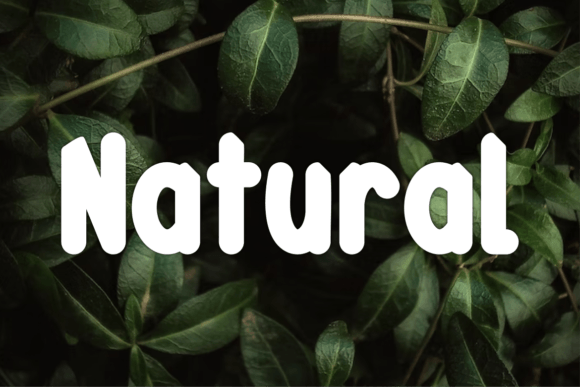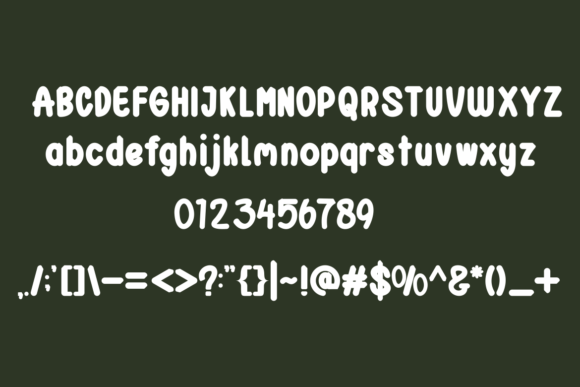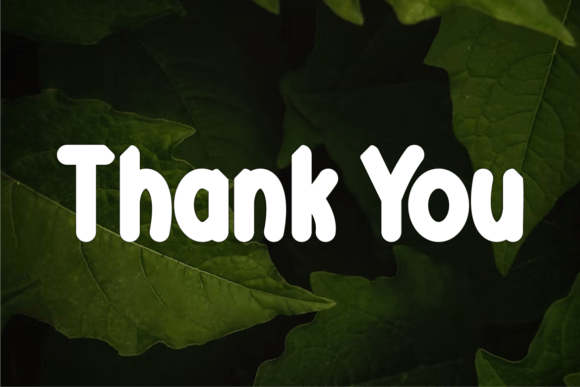
Ceddill Font: Elevate Your Designs with Elegance and Sophistication
In the world of typography, a font can make or break a design. For designers and crafters seeking to add a touch of elegance and sophistication to their projects, Ceddill Font is an exceptional choice. This bold display font exudes beauty, class, and modernity, making it perfect for a wide range of applications.
The Essence of Ceddill Font
Ceddill Font is a stunning typeface that embodies the perfect blend of elegance and modernity. Its bold and eye-catching design makes it an ideal choice for designers looking to create a lasting impression. Whether you’re working on a logo, branding, or packaging design, Ceddill Font is sure to elevate your project to new heights.
One of the standout features of Ceddill Font is its versatility. This font is perfectly suited for a wide variety of projects, including:
- Signature and stationery designs
- Logo and branding creations
- Wedding and event typography
- Typography quotes and posters
- Magazine and book covers
- Website headers and UI design
- Clothing and apparel design
- Packaging design and more
Why Choose Ceddill Font?
So, what sets Ceddill Font apart from other typefaces? Here are just a few reasons why designers and crafters love working with this font:
- Elegant and sophisticated design: Ceddill Font boasts a beautiful, classy, and modern design that’s sure to impress.
- Highly versatile: From logos to website headers, Ceddill Font can be used in a wide range of projects.
- Easy to read: Despite its bold design, Ceddill Font remains easy to read, making it perfect for body text and headlines.
- Unique and distinctive: Ceddill Font’s unique design ensures that your project will stand out from the crowd.
Tips for Using Ceddill Font
To get the most out of Ceddill Font, here are a few tips to keep in mind:
- Use it as a headline font: Ceddill Font is perfect for grabbing attention and making a statement.
- Pair it with contrasting fonts: Combine Ceddill Font with simpler fonts to create visual interest and hierarchy.
- Experiment with colors and textures: Ceddill Font looks stunning in a variety of colors and textures, so don’t be afraid to get creative.
Ceddill Font is a stunning bold display font that’s perfect for designers and crafters seeking to add a touch of elegance and sophistication to their projects. With its versatile design, ease of use, and unique style, Ceddill Font is sure to become a go-to choice for a wide range of applications. Whether you’re working on a logo, branding, or packaging design, Ceddill Font is an exceptional choice that’s sure to elevate your project to new heights.